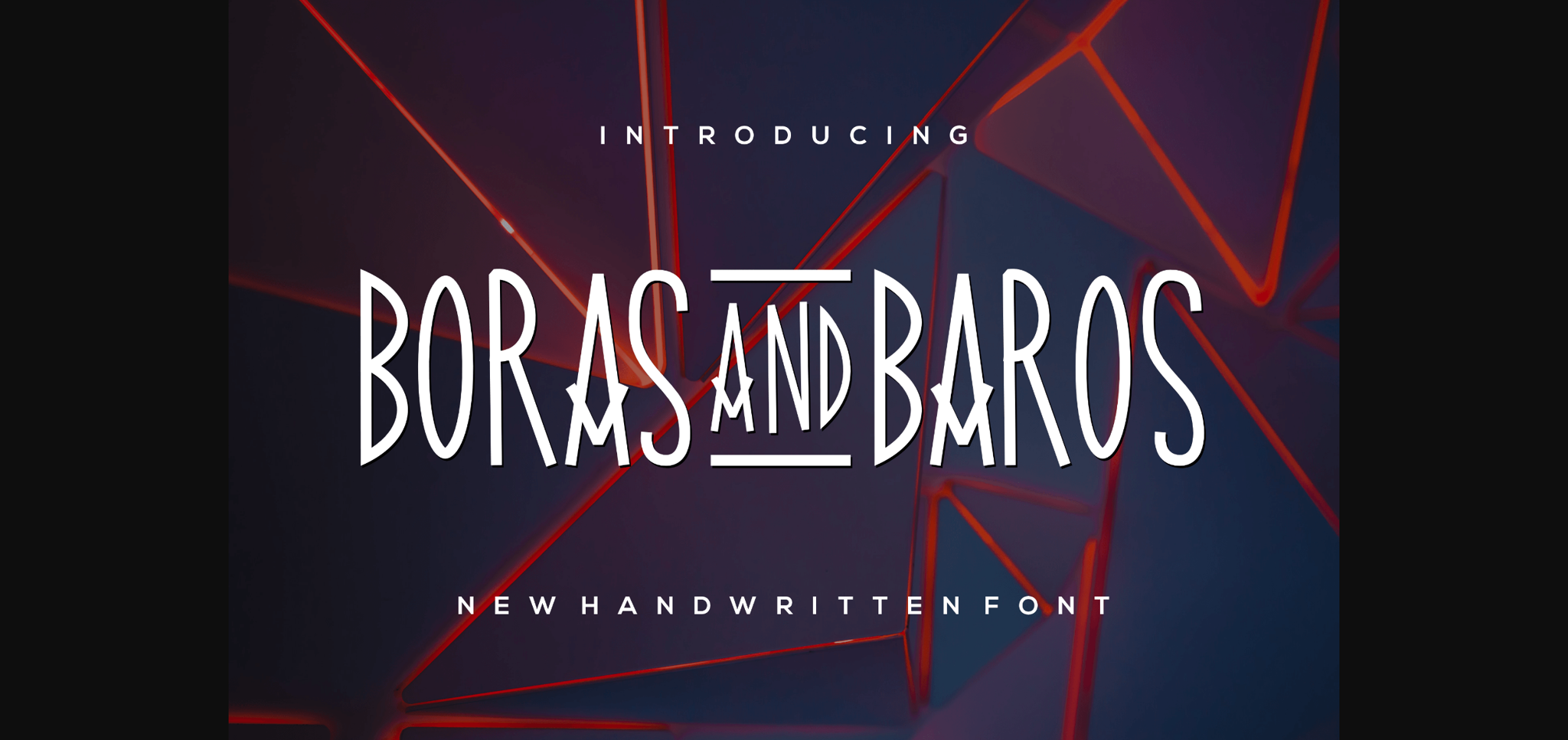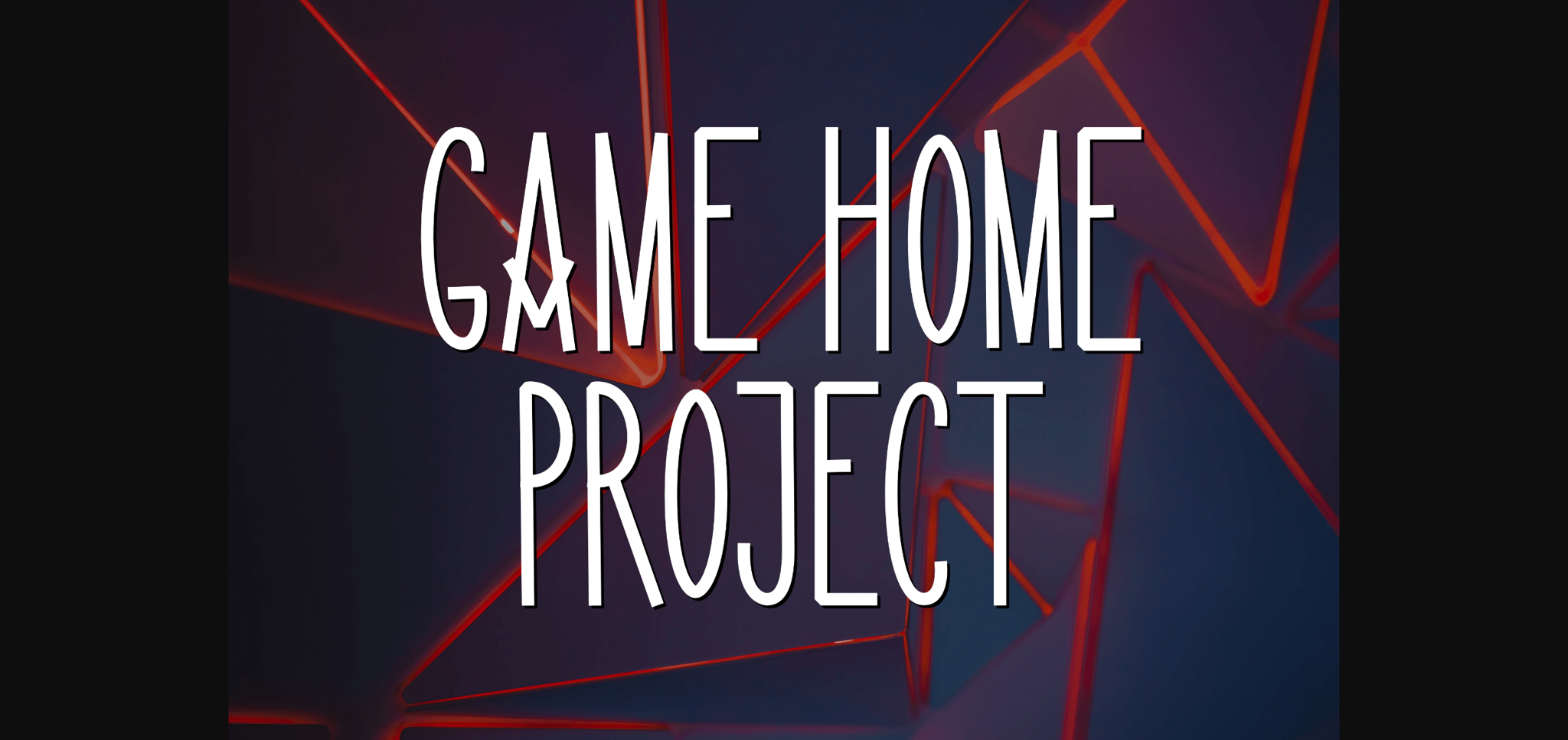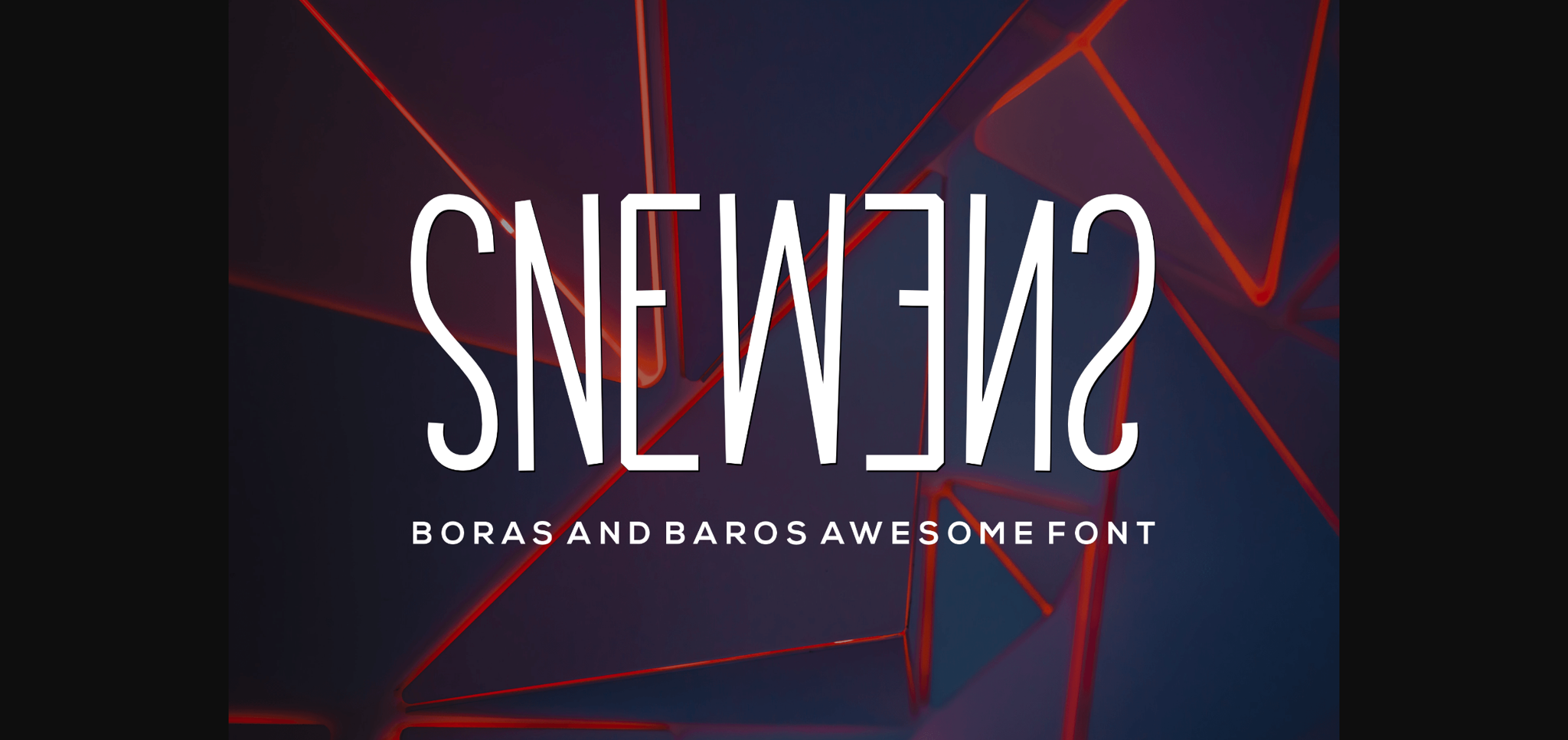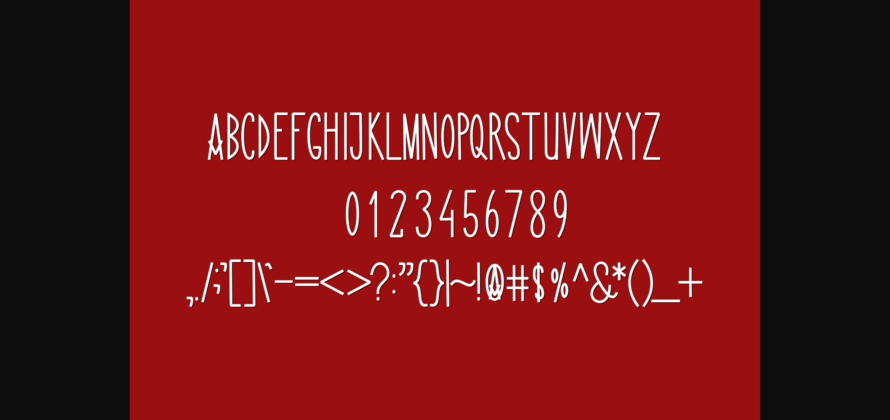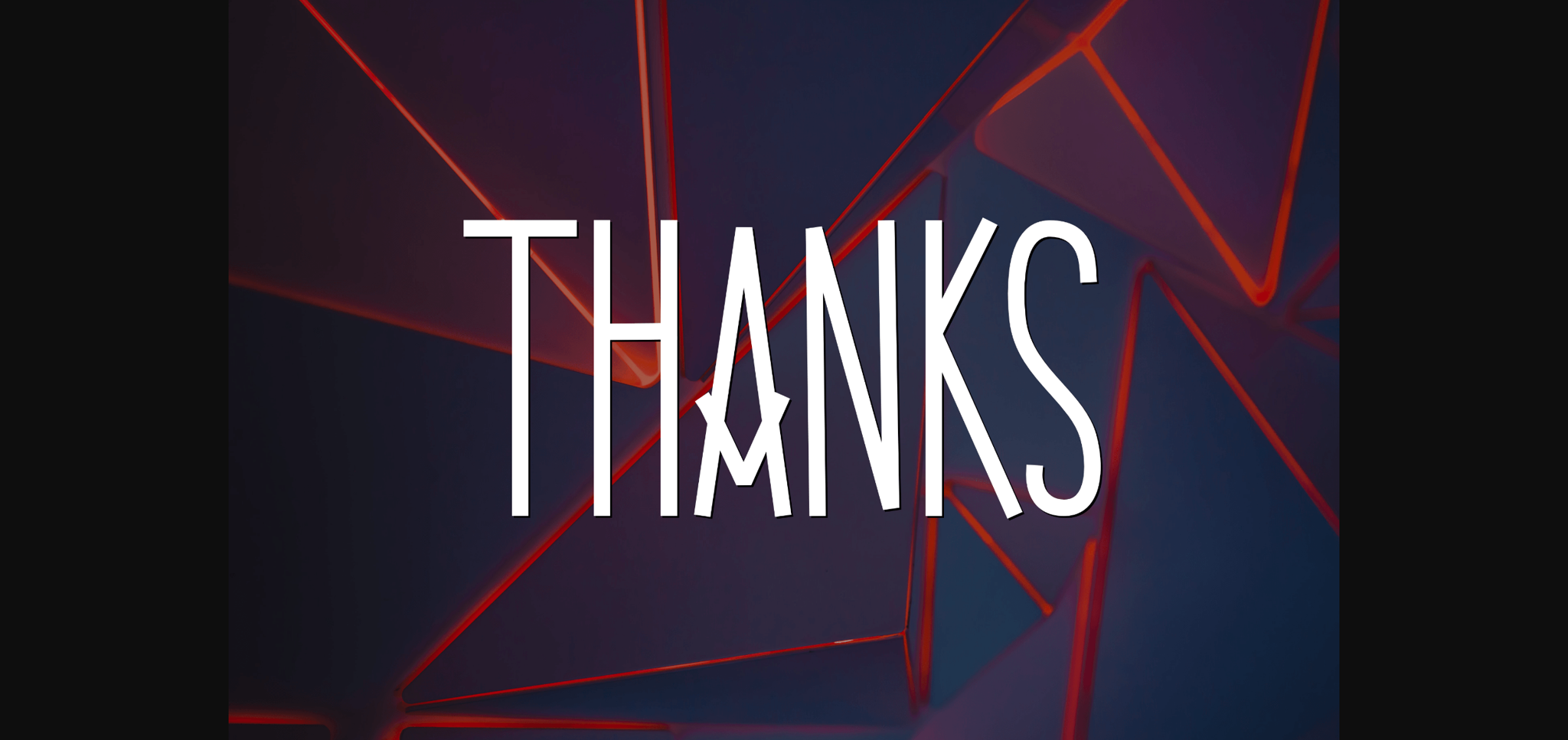
HomeSans Serif FontsBorasandbaros Font Sans Serif Fonts Borasandbaros Font FacebookXPinterestWhatsApp 1 of 7 ... Borasandbaros Font Poster 2... Borasandbaros Font Poster 3... Borasandbaros Font Poster 4... Borasandbaros Font Poster 5... Borasandbaros Font Poster 6... Borasandbaros Font Poster 7... About Borasandbaros Font BorasAndBaros is a thin and stylish sans serif font with capital letters. It is perfect for creations that need neat typography with a fancy twist. DOWNLOAD NOW People also explored Sandbox Font Cookie Jar Font Martha Font Beathria Font Talesha Southgate Font Dimetone Font Melody Summer Font Antariksa Font 507 0 TagsBorasandbaros Font Previous articleBekind FontNext articleNorges Font LEAVE A REPLY Cancel reply Comment: Please enter your comment! Name:* Please enter your name here Email:* You have entered an incorrect email address! Please enter your email address here Website: Save my name, email, and website in this browser for the next time I comment. Personal Use Free Wordan Personal Use Free Read more about this font Vembazax Rm Personal Use Free Read more about this font Masha Song Personal Use Free Read more about this font Messy Personal Use Free Read more about this font BLOG Fonts That Capture the Spirit of New York City New York City is more than just a place—it’s an experience, a rhythm, a visual language... Free vs Paid Fonts: Why Investing in Premium Fonts Is Worth It Where to Buy American Fonts Online in 2024 Top 10 Handwritten Fonts That Elevate Your Designs